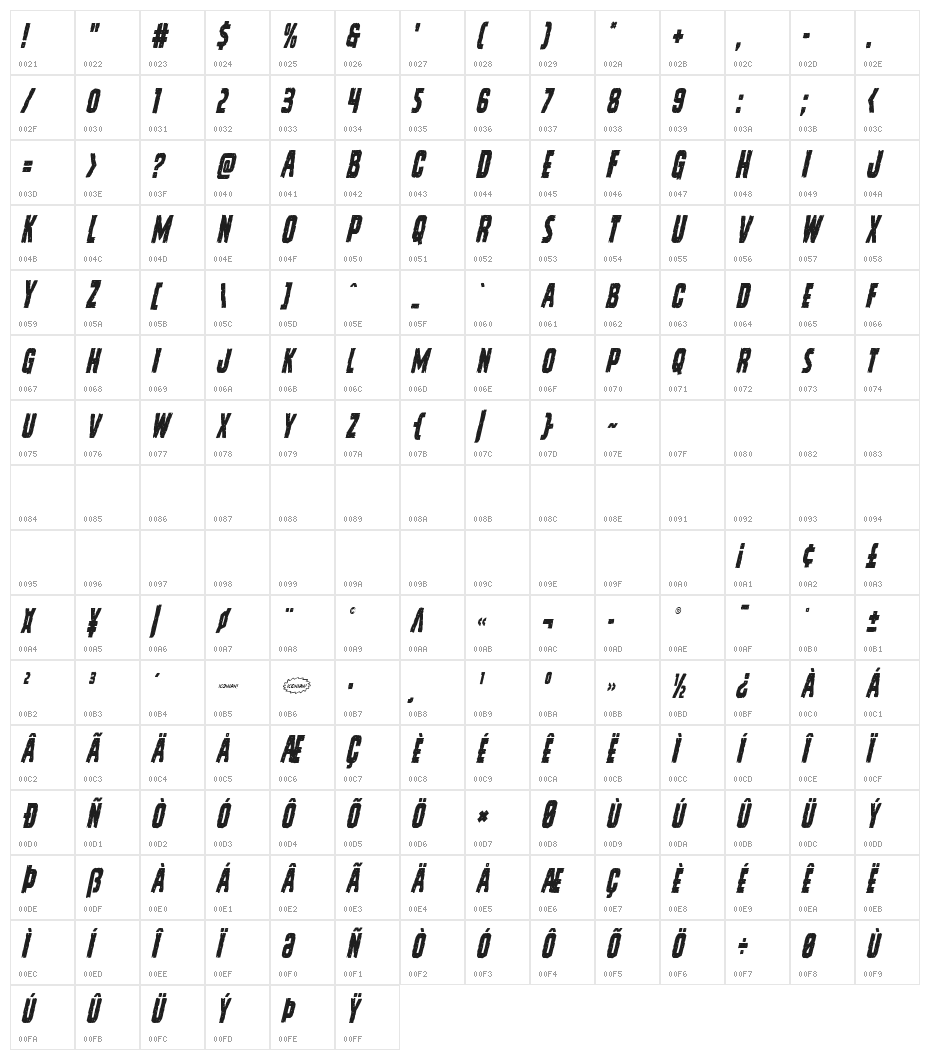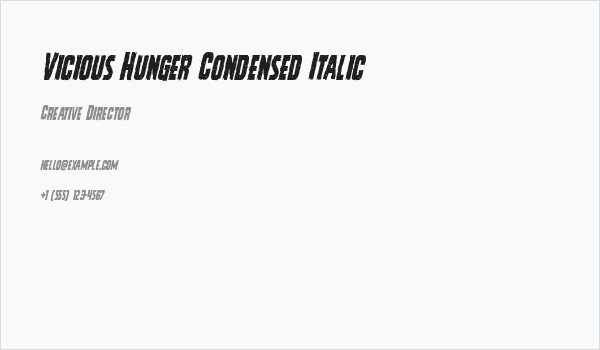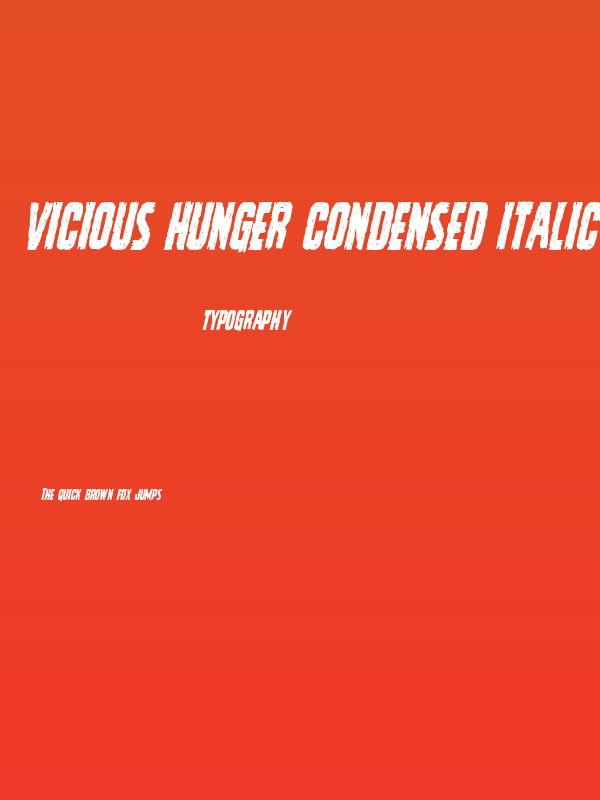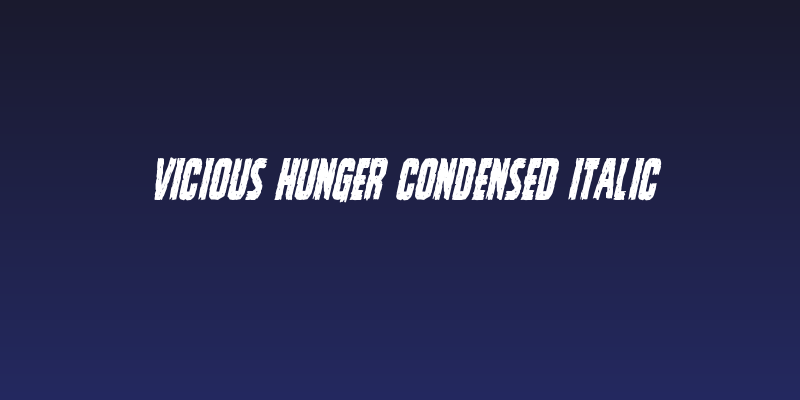
Vicious Hunger Condensed Italic Font
Vicious Hunger Condensed Italic Description
This font exudes a raw and edgy aesthetic, characterized by its bold, jagged strokes that create a sense of urgency and intensity. The condensed form enhances its compactness, making it ideal for impactful headlines. The italic slant adds a dynamic and forward-moving energy, suggesting motion and aggression. The distressed texture gives it a gritty, worn appearance, reminiscent of street art or punk rock posters. Its uppercase letters are particularly striking, demanding attention with their sharp angles and uneven edges. The numbers and special characters maintain this rugged style, ensuring consistency across all elements.
| Overall Style | Edgy, Urban, Punk |
| Use Case | Headlines, Posters, Branding |
| Proposed Projects | Ideal for music album covers, movie posters, event flyers, or any project requiring a bold, rebellious aesthetic. |